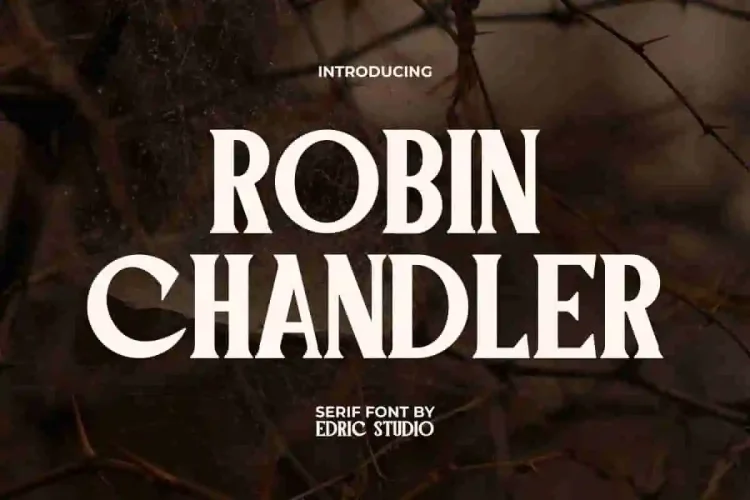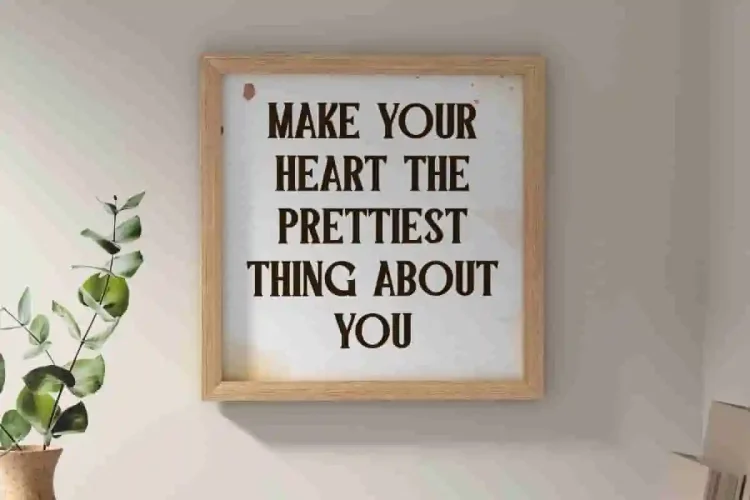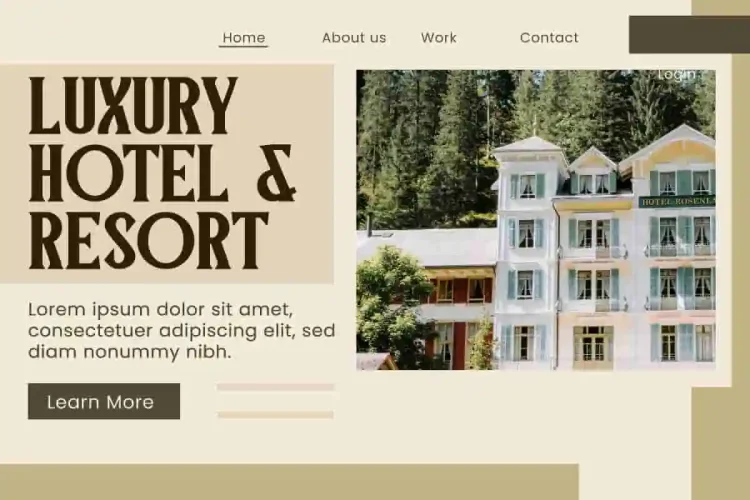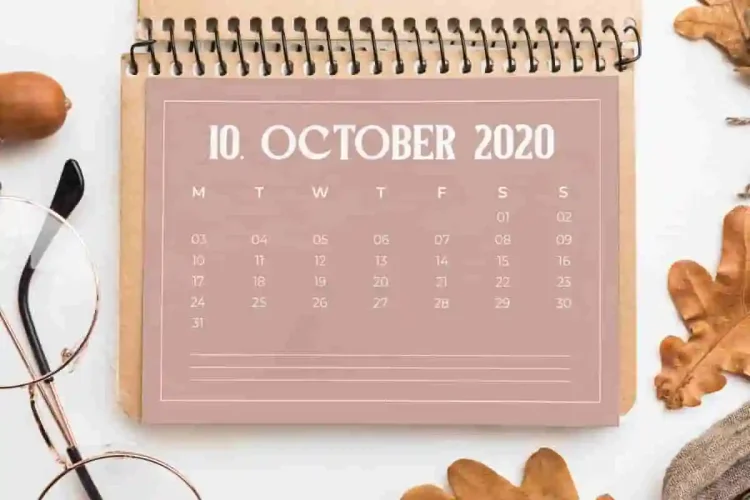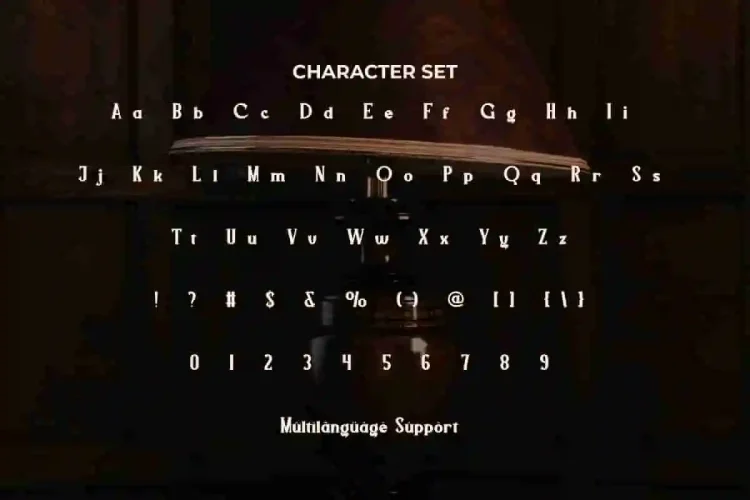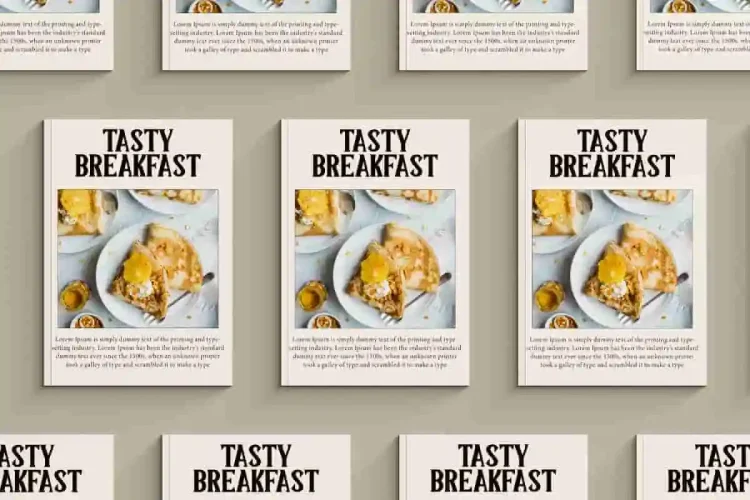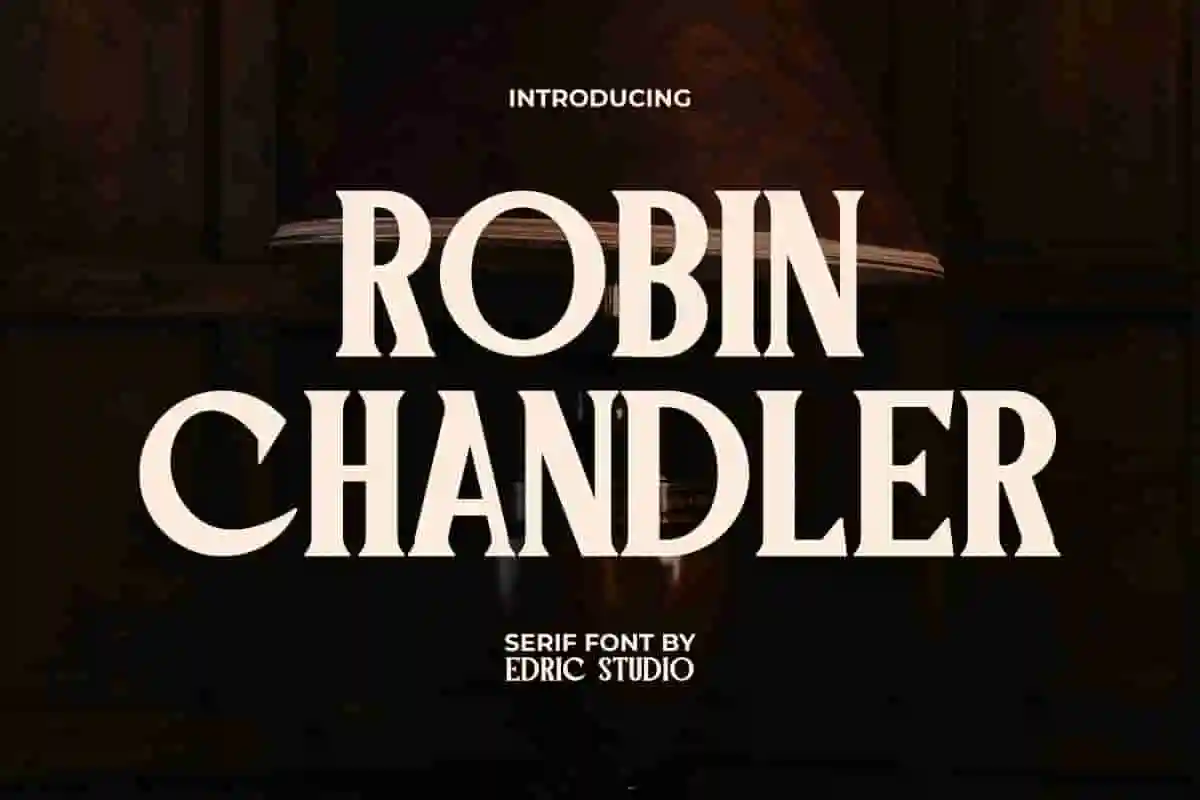
Robin Chandler Font is a classic serif display font that is elegant and more trendy, perfectly crafted to maximize the impact of nostalgia. It has a clean and minimalist letter design giving it a warm and stylish personality. This font is ideal for banners, blogs, brochure, business card, calendar, cover, flyer, headers, headline, label, logo, menu, poster, text art on background, stationery, title, website, etc.
Robin Chandler Font comes with a complete set of Uppercase and Lowercase Letters, Number, Punctuation, and Symbols. With a bold and impactful look in a classy antique finish it creates a stunning handcrafted font for any type of design you create. This type of font will be perfect for your various needs such as advertising, beauty salon, café, craft, food and beverages, hotel, printing, resort, restaurant, web designer, and many more!